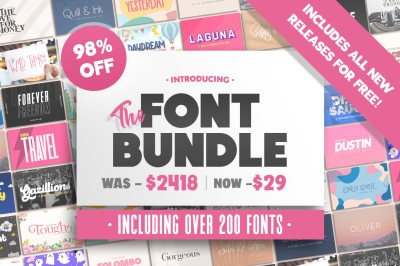
The HUGE Font Bundle
The HUGE Bundle Font
The HUGE Bundle is a versatile typeface crafted for designers who demand both personality and precision in their work.
Common applications include business cards, posters, web headers, advertising materials, book covers, and corporate identity systems.